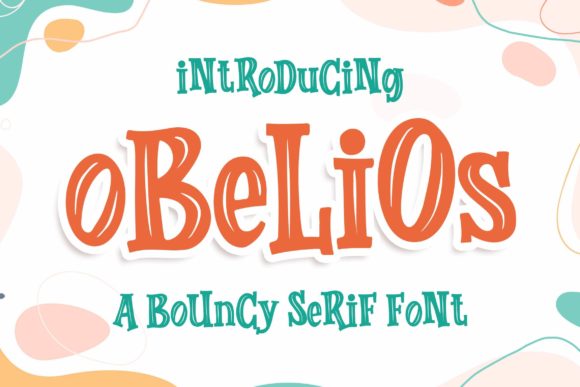
Prepare your heart for a delightful typographical journey with Obelios Font, an enchanting display font crafted by Blankids Studio. Obelios is not just a font; it's an expression of love and joy, thoughtfully designed to bring an irresistible charm to your creative endeavors. Immerse yourself in its elegant curves and playful strokes, and let them dance across your designs.
Picture this: you're planning a Valentine's Day party, and you want your invitations to exude warmth and affection. Obelios Font will make your invitations shine with its captivating personality. The font's dynamic characters will convey the heartfelt emotions of the occasion, enticing your guests to attend your special gathering.
Beyond Valentine's Day, Obelios Font is an excellent companion for any design that seeks a touch of youthful exuberance. Design posters, flyers, social media posts, or even logos with Obelios, and watch as it transforms your creations into visually captivating masterpieces. Its bouncy, energetic style injects life into your designs, creating a lasting impression that will leave your audience enchanted.
What sets Obelios Font apart is its versatility. It's equally at home in both formal and informal settings. Use it to craft elegant wedding invitations one day, and playful birthday cards the next. Obelios effortlessly adapts to your creative vision, seamlessly enhancing the tone and message of your designs.